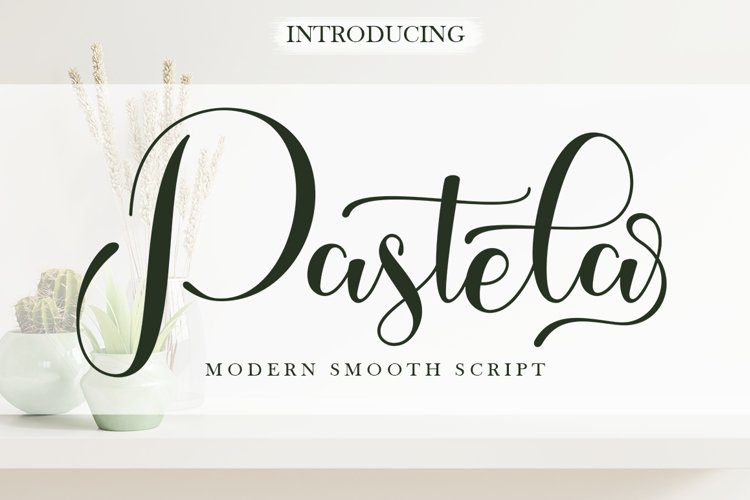
Pastela is a modern and casual script font. It has beautiful swashes and it’s perfect for logos, wedding invitations, branding and much more. this font is made with great concentration to make it stand out.